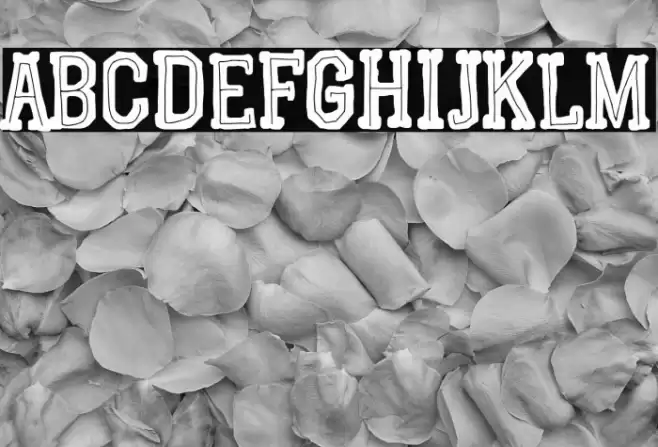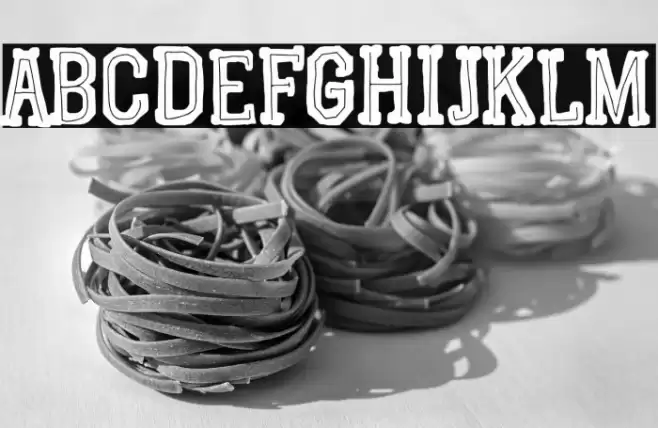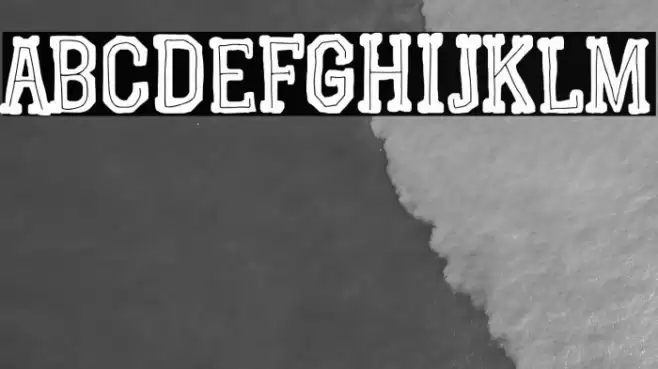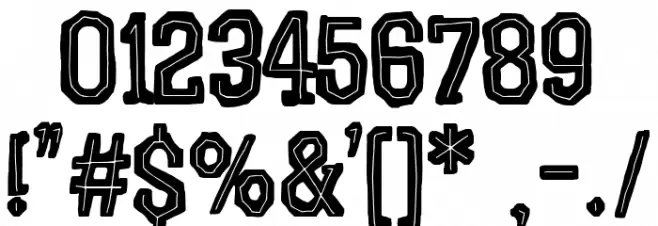
Graphic Dictatorship Font
Graphic Dictatorship Description
This font features a bold, decorative style with a strong presence. The characters are outlined with a thick, black border, giving them a three-dimensional appearance. The interior of each letter is hollow, creating a striking contrast between the bold outlines and the empty space within. This design choice adds a unique, eye-catching element to the font, making it ideal for attention-grabbing headlines or titles. The uppercase letters are consistent in height and width, providing a uniform look across the alphabet. The numerals and special characters follow the same design principles, ensuring a cohesive appearance throughout. The font's distinct style is reminiscent of vintage poster typography, combining a classic feel with a modern twist.
A bold, decorative font with thick outlines and hollow interiors, perfect for striking headlines from Cartoon fonts.
- Font: Graphic Dictatorship
- Contrast: High
- Overall Style: Vintage
Graphic Dictatorship UPPERCASE